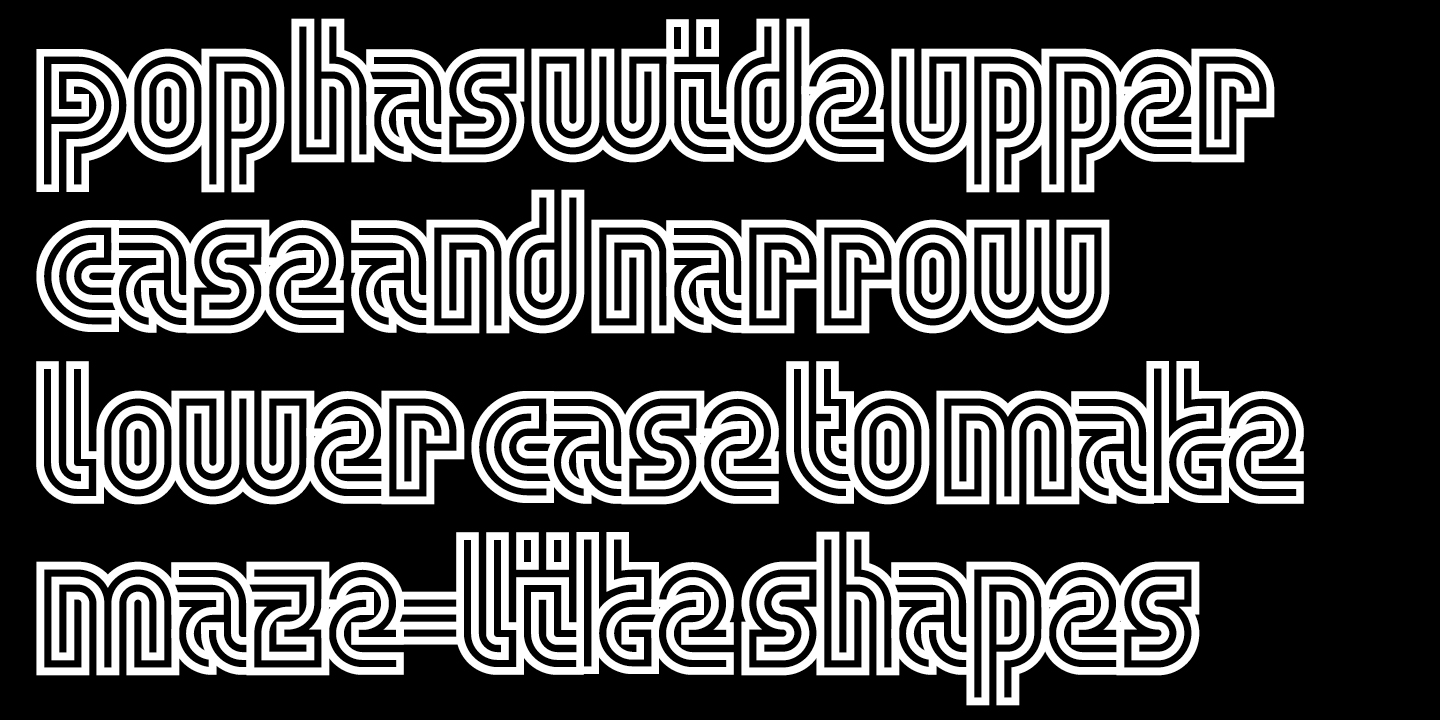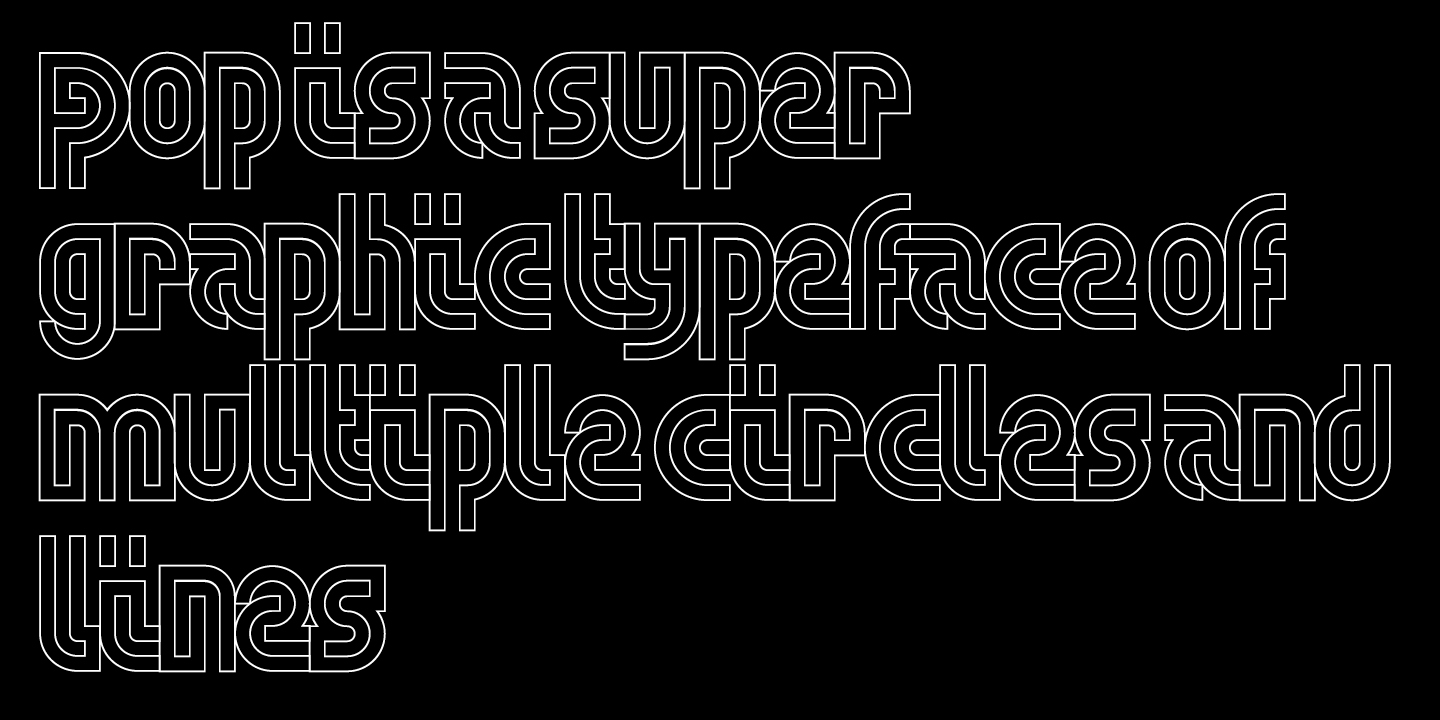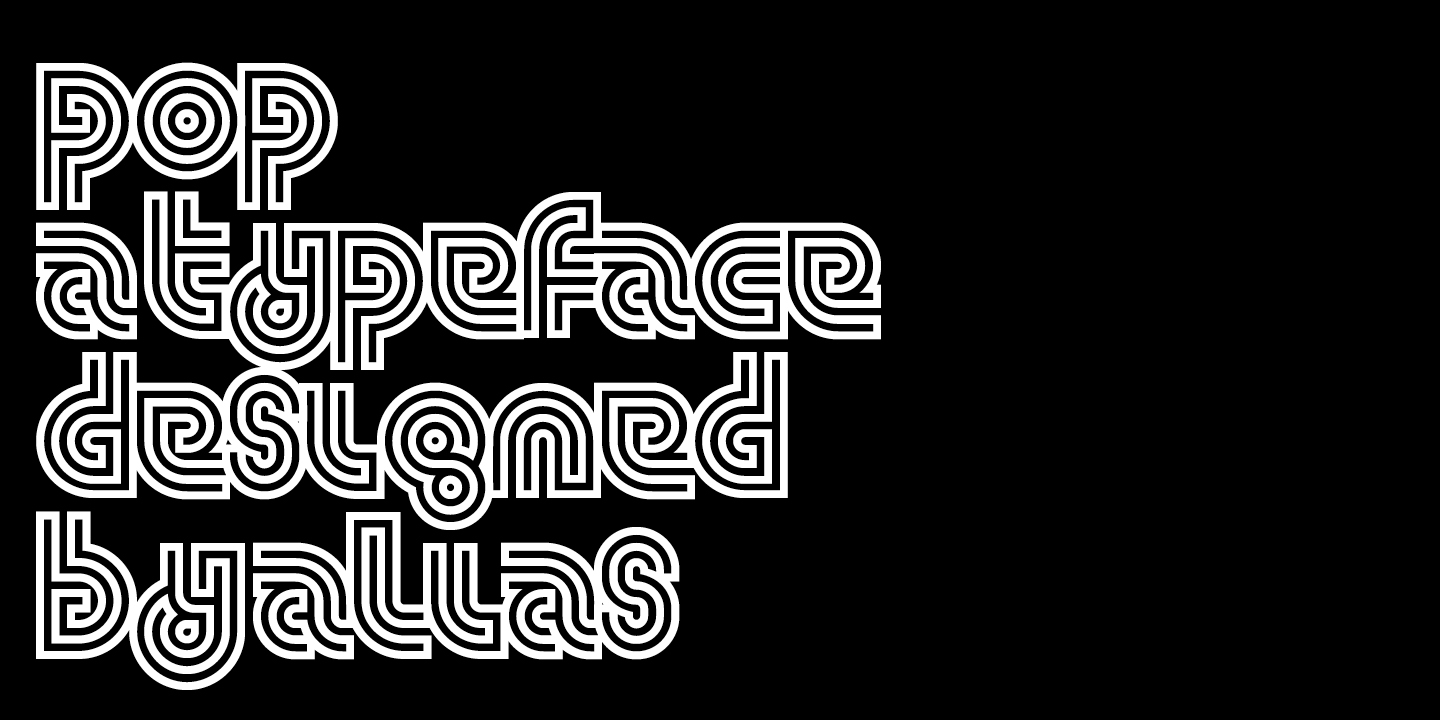
A decorative, maze-like multi-line typeface in two weights. Lower case is narrow, upper case is wide, the two can be mixed to give a variety of bold, dynamic effects.